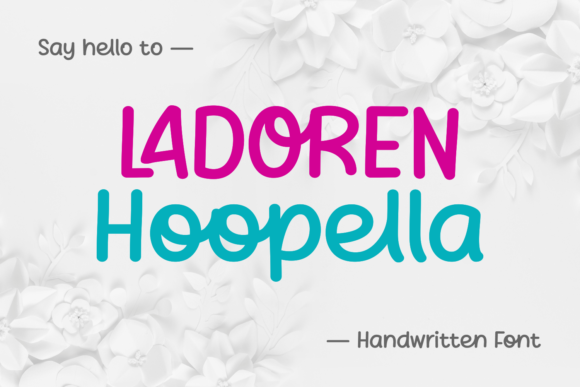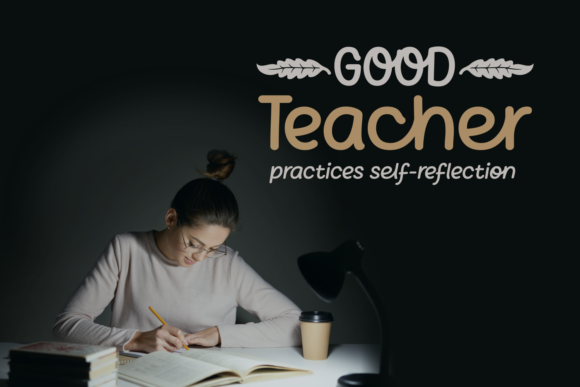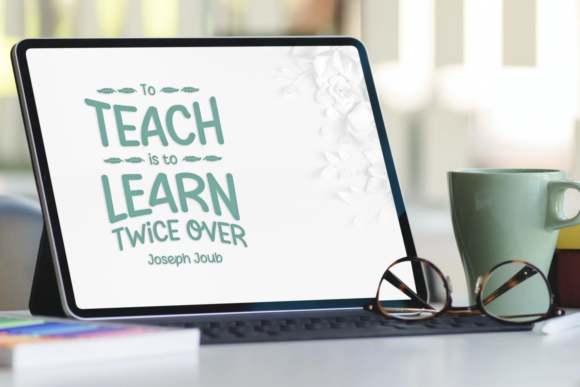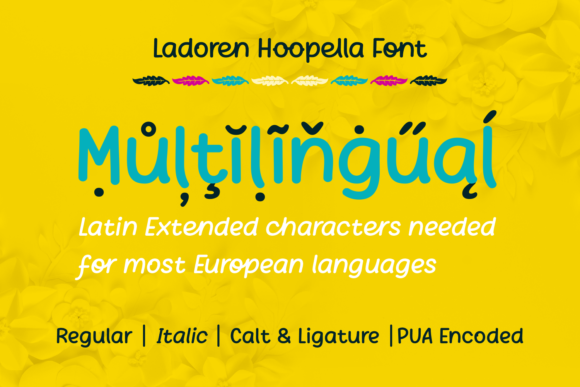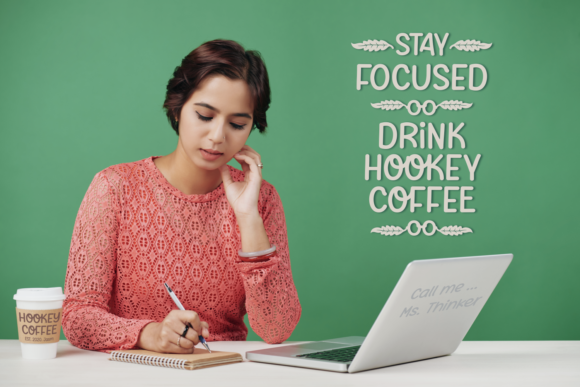
Ladoren Hoopella Font
About Ladoren Hoopella Font
Ladoren Hoopella is a cute handwritten font. It features gorgeous characters and ligatures that make this script incredibly versatile. Whether you’re looking for fonts for Instagram or calligraphy scripts for DIY projects, Ladoren Hoopella will turn any creative idea into a true piece of art!